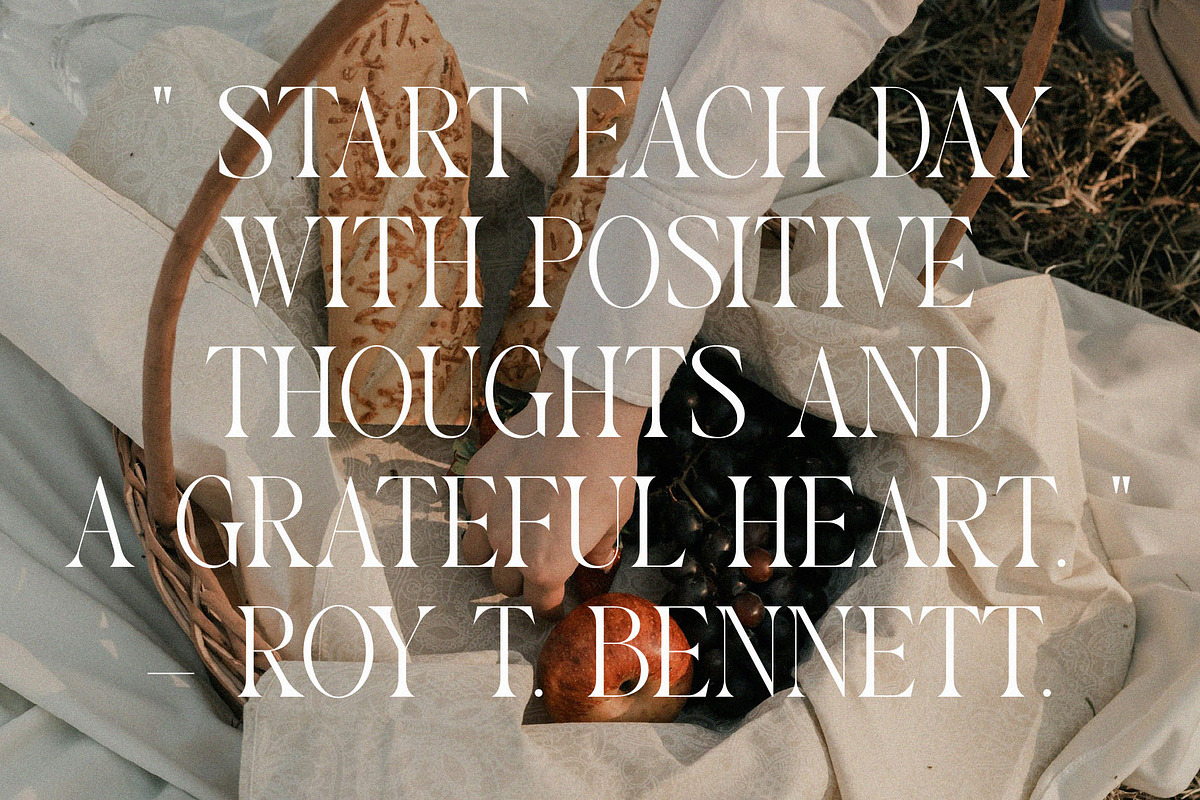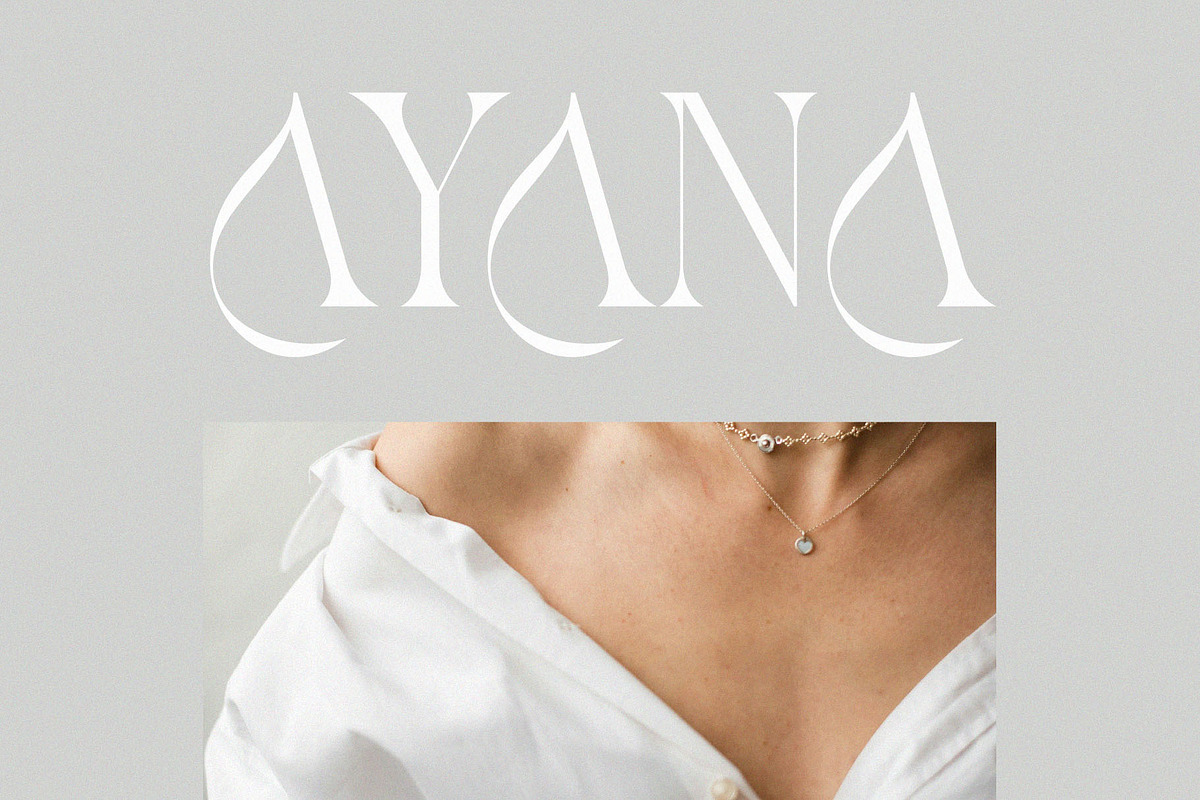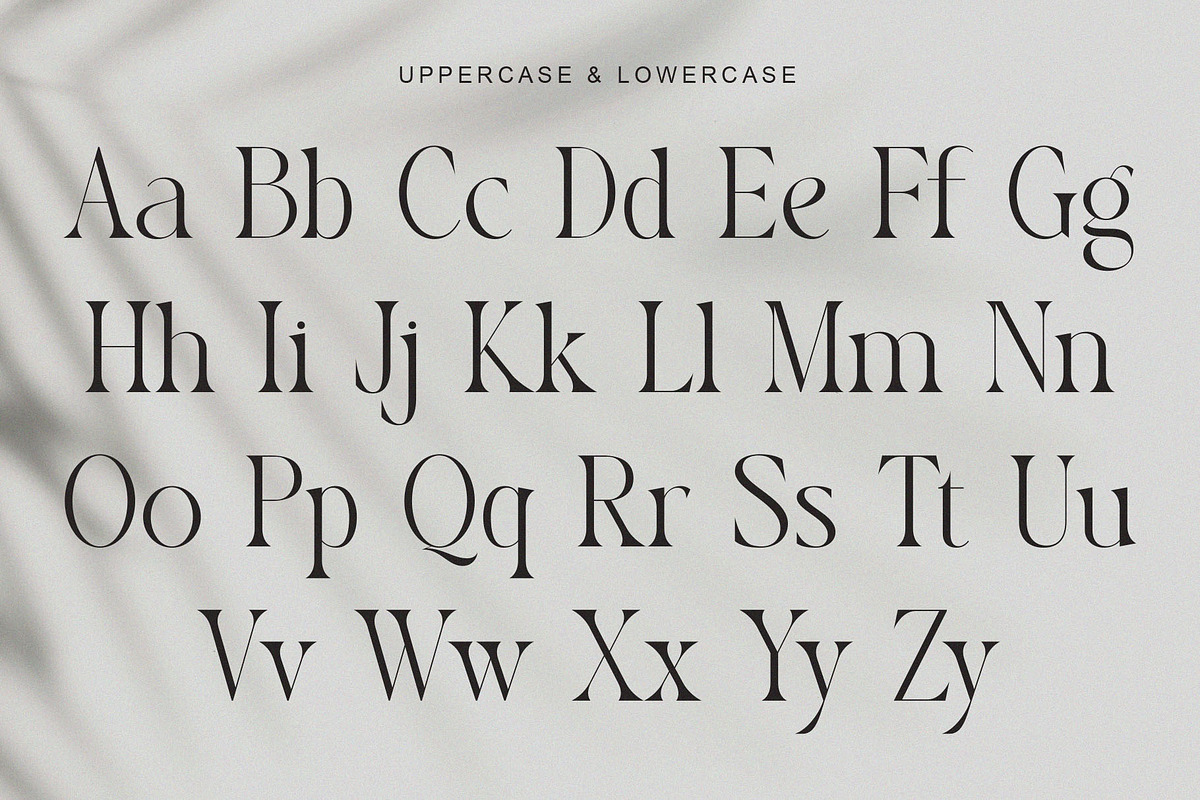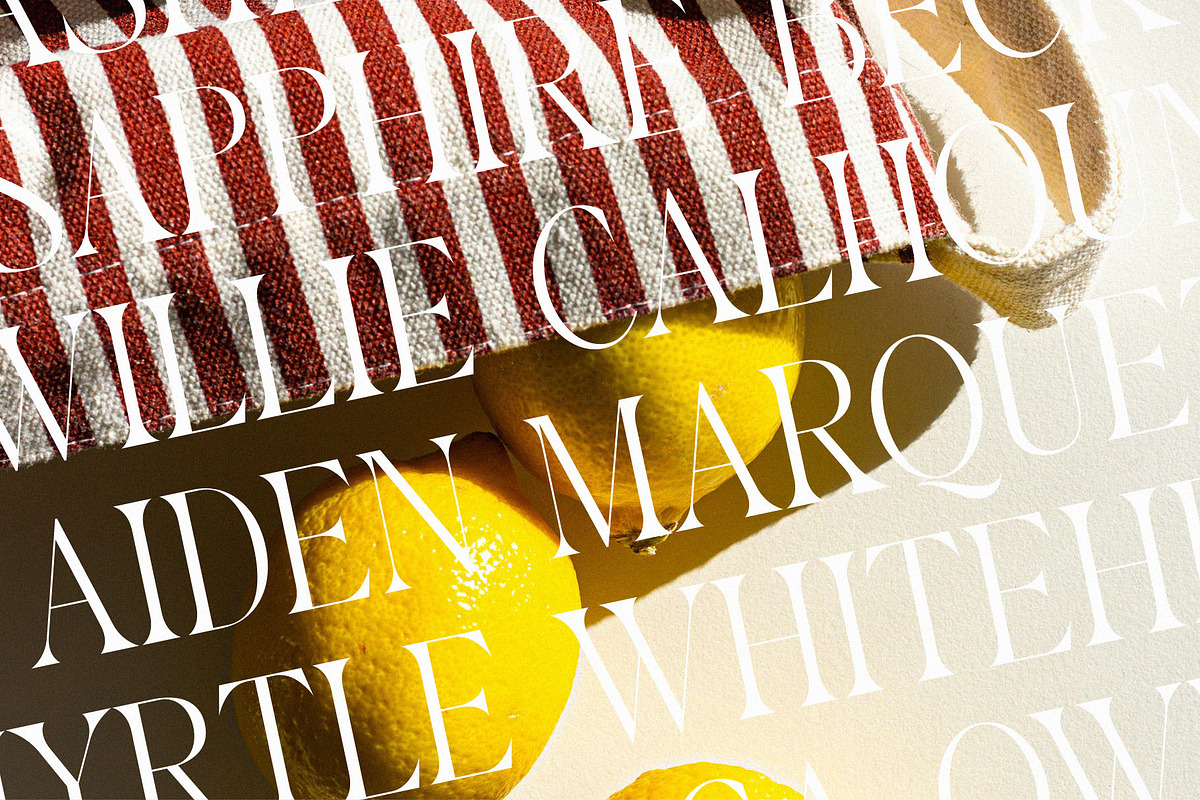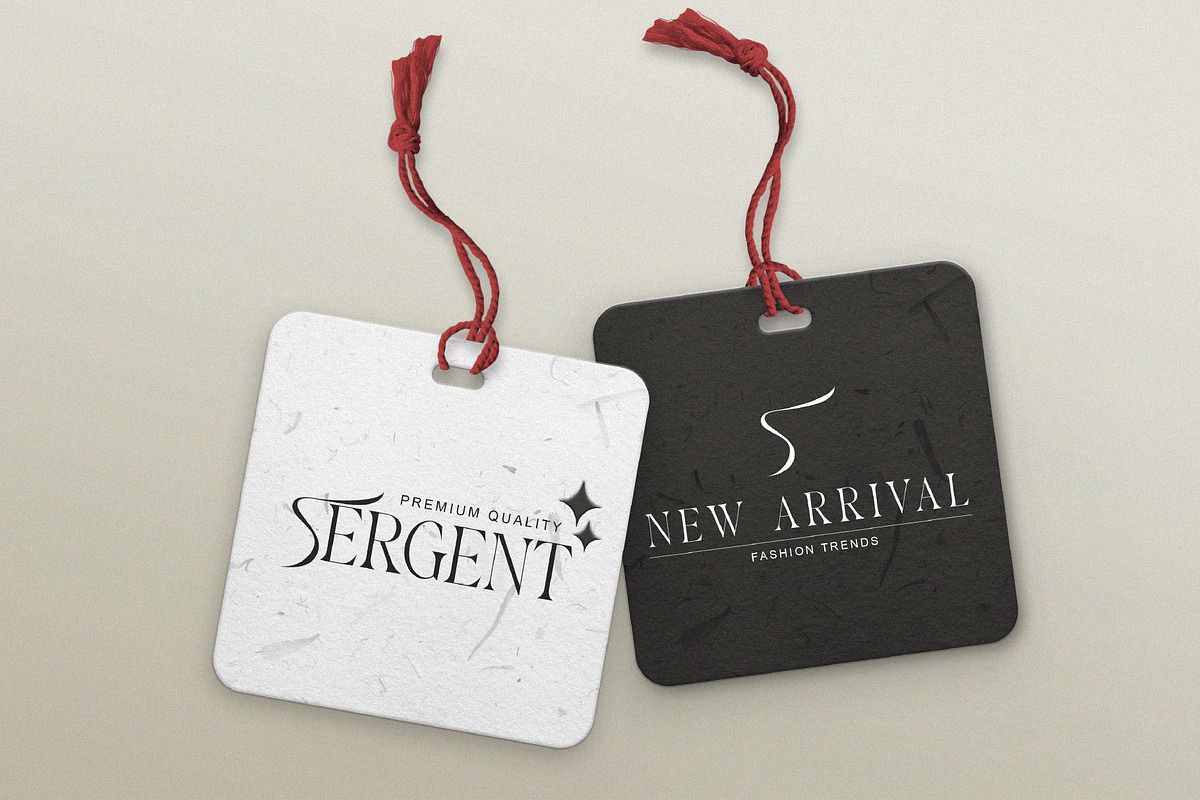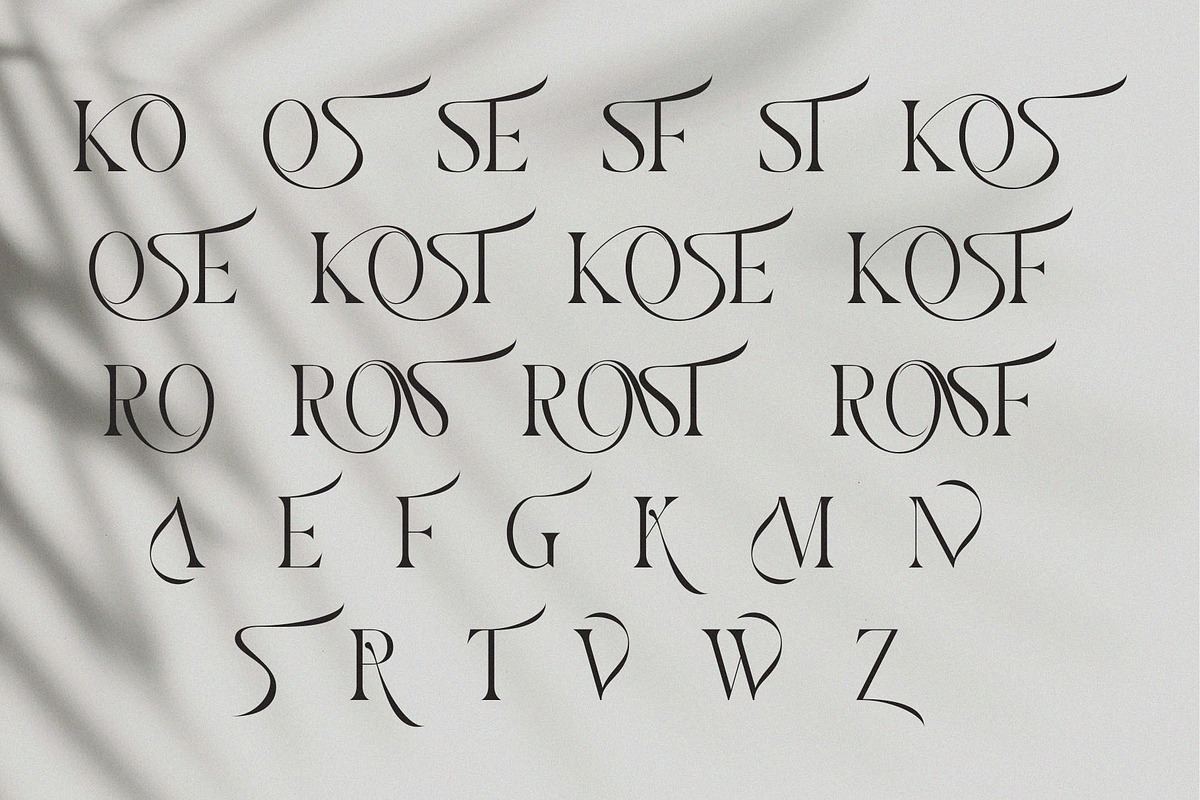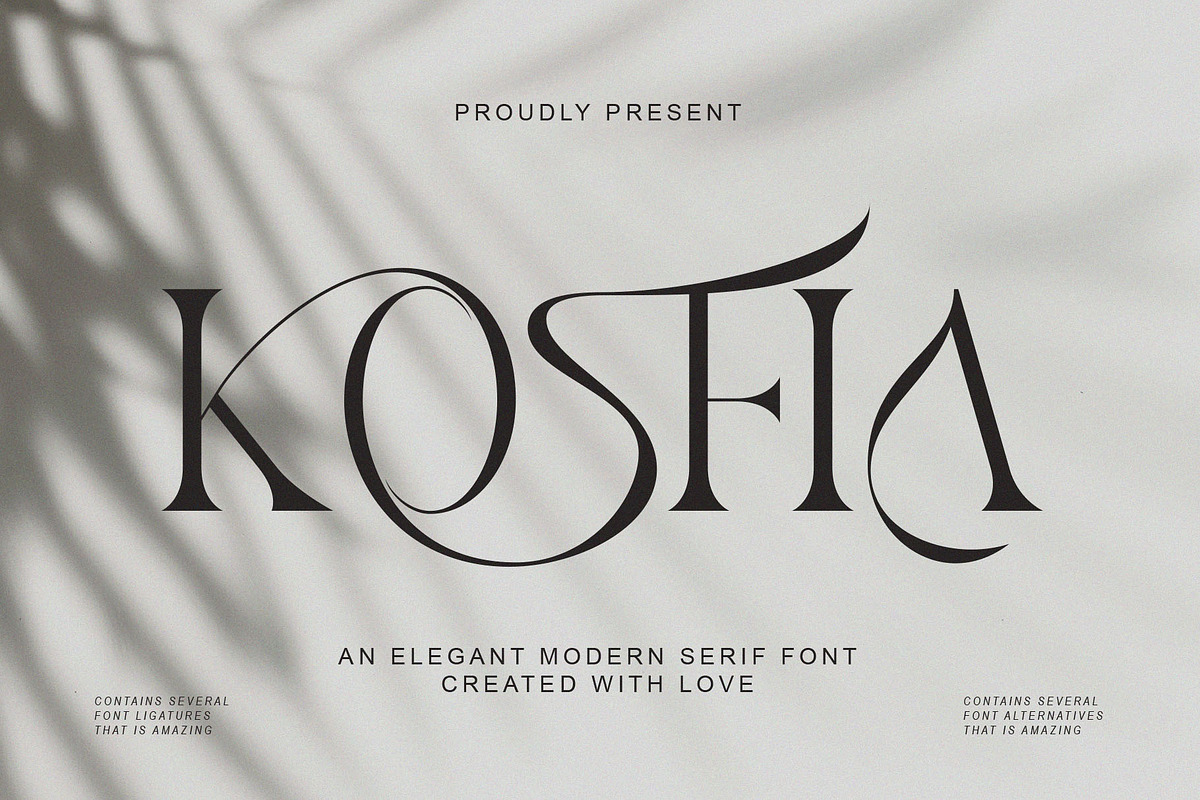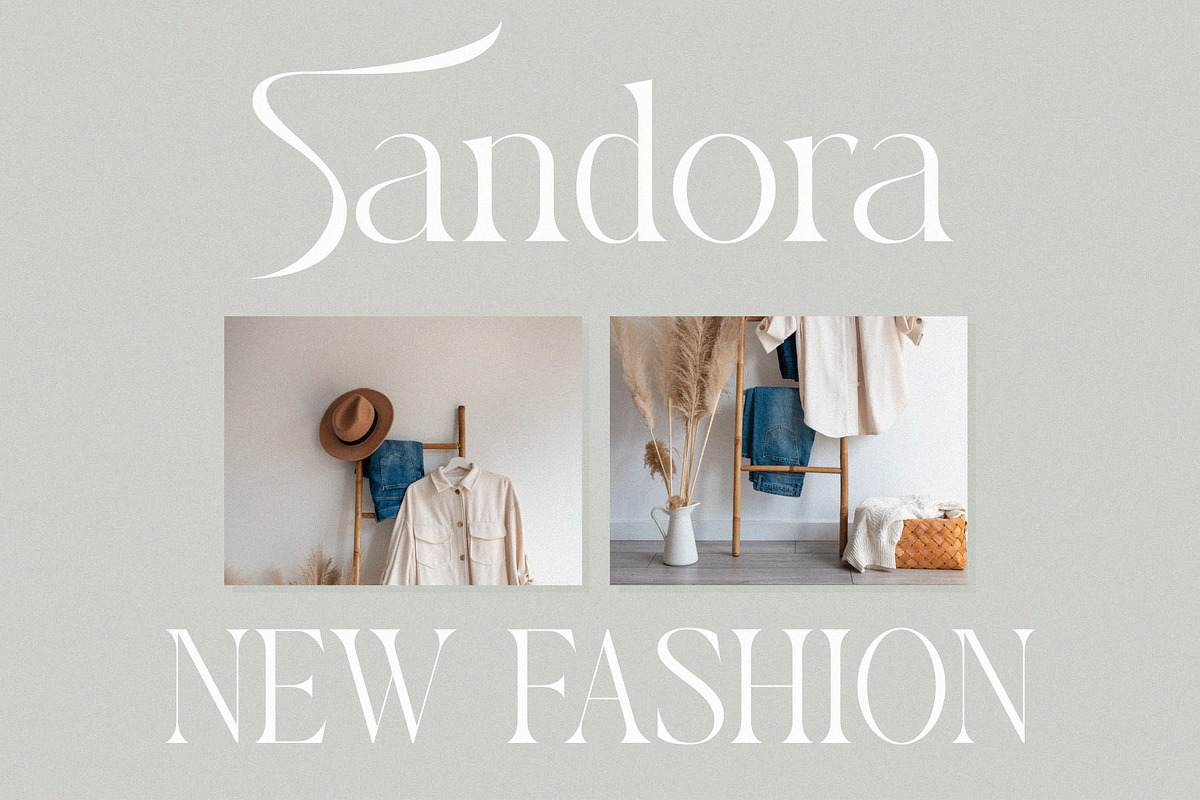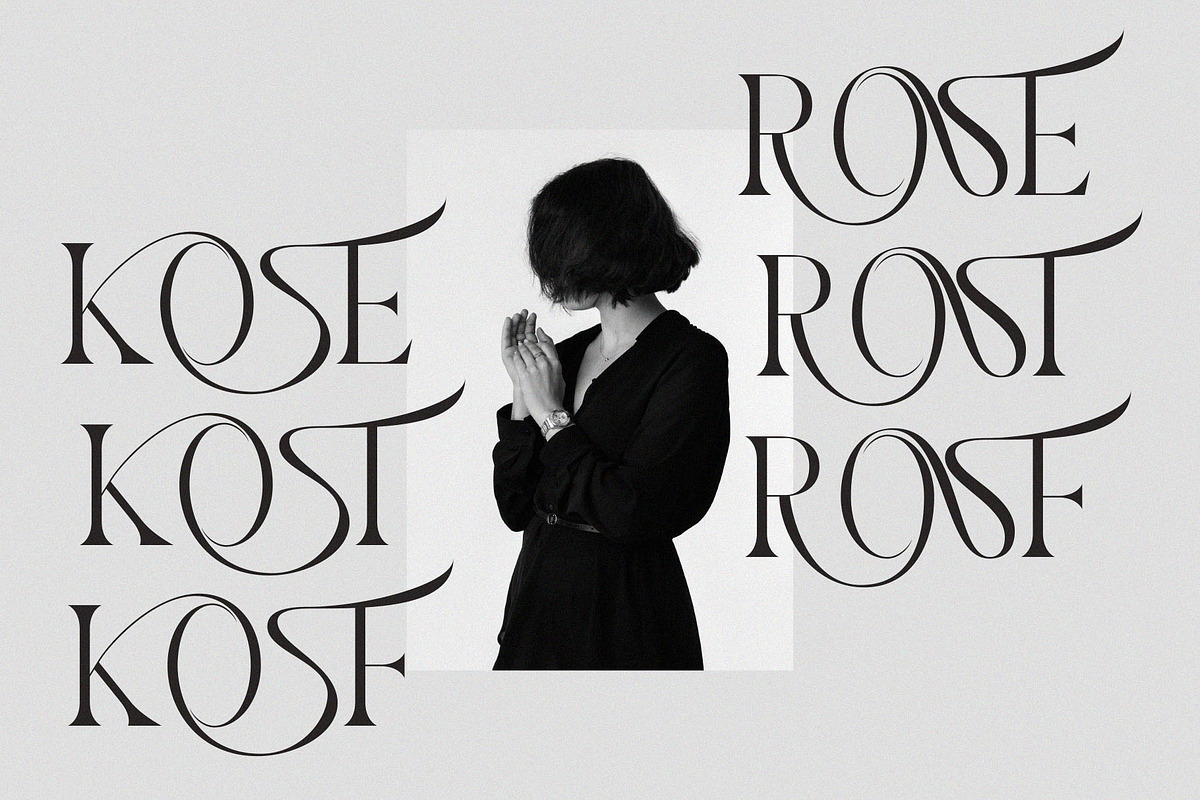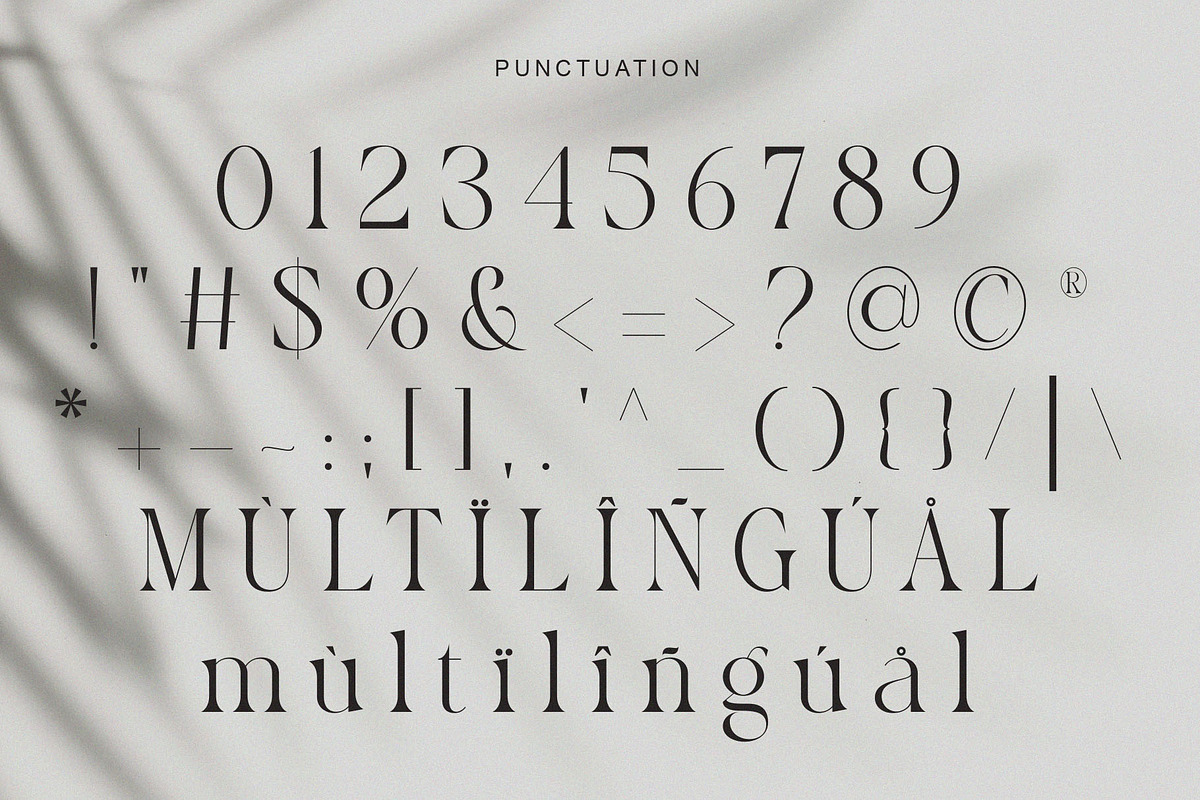
KOSFIA
Introducing KOSFIA: with a modern and minimalist serif look, KOSFIA brings a luxurious and clean style to your projects such as websites, modern logos, branding identities, social media quotes, wedding stationery and various other needs!
KOSFIA features unique and classy capital letters A to Z and comes with ligatures and alternate letters, making it a beautiful font that can be adapted to any large project you desire.